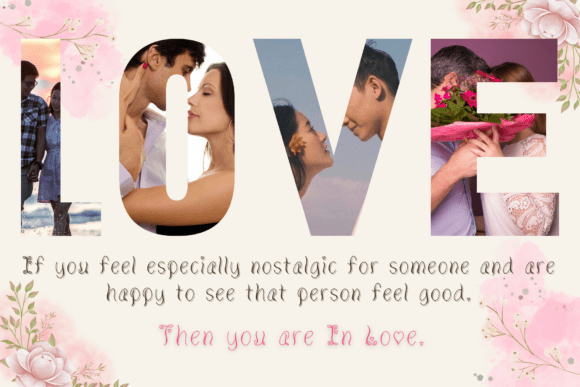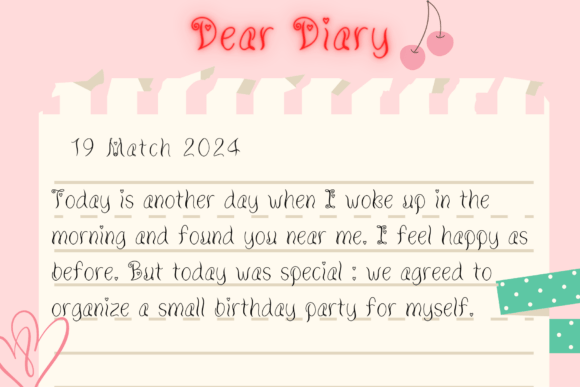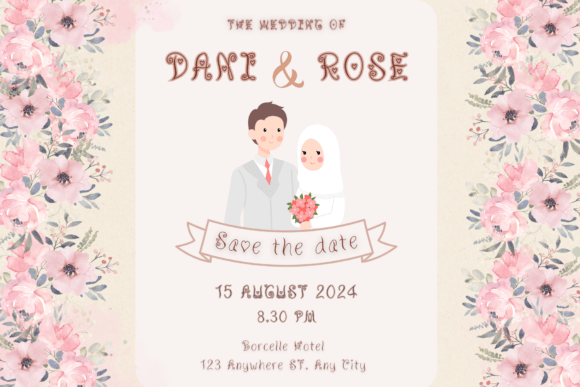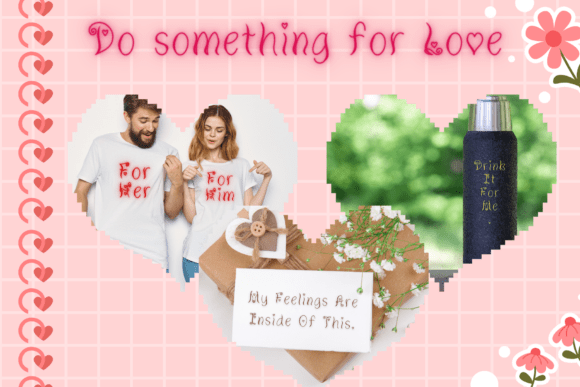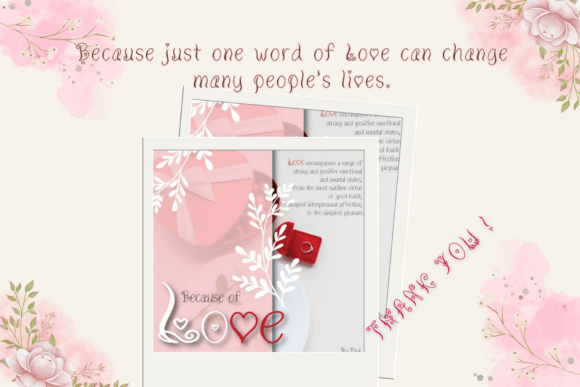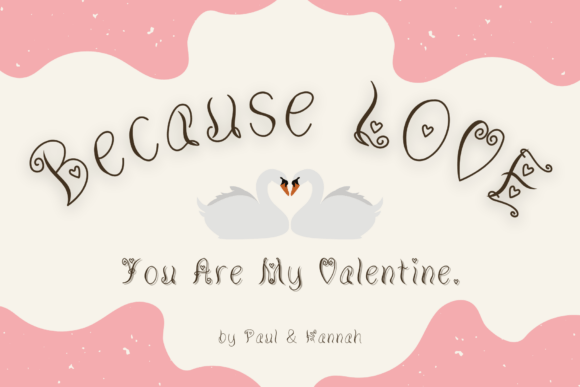
Adding a Touch of Love to Your Creations
As a designer, there’s nothing quite like the thrill of bringing a new project to life. You pour your heart and soul into every detail, from the initial concept to the final flourish. And then, it happens – that moment when everything comes together in perfect harmony. But what if you could take your creations to the next level? What if you had the perfect tool to add a touch of magic to your designs?
Enter Because Love Font, a stunning decorative font that’s sure to elevate your projects to new heights. Whether you’re working on a Valentine’s Day campaign, a romantic wedding invitation, or simply a heartfelt message, Because Love Font is the perfect companion. Its elegant, whimsical design makes it an instant favorite among designers, and its versatility means it can be used for a wide range of creative pursuits.
With Because Love Font in your arsenal, the possibilities are endless. So why settle for ordinary when you can make your designs truly extraordinary? Add a touch of love to your creations and watch them come alive in a whole new way.
Key Features of “Because Love Font”
- Font Family: Because Love Font is a unique, hand-drawn font designed to convey emotions and feelings. It comes in a single font family.
- Character Set: The font includes a wide range of characters, including uppercase and lowercase letters, numbers, punctuation marks, and special characters.
- Size: The font is available in a single font size, but it can be scaled to various sizes without losing its unique characteristics.
- Unique Characteristics: Because Love Font features a hand-drawn, cursive style with intricate details and flourishes, making it perfect for creating romantic and emotional designs.
Designer Review: Because Love Font
Overall, I think the “Because Love Font” is a solid choice for any project that needs a touch of romance and elegance. Here are a few things that stand out:
- ✨ Elegant and refined design, perfect for wedding invitations, love letters, and other romantic projects.
- ✨ The font’s subtle imperfections and handwritten feel add a unique, human touch to digital and print designs.
- ✨ It’s highly legible, making it suitable for body text as well as headlines and titles.
- ⚠️ The font may be a bit too ornate for some projects, potentially overwhelming the design.
- ⚠️ Some characters may not display correctly in certain font sizes or resolutions.
- ⚠️ The font’s unique style may not be suitable for projects that require a more modern or minimalist aesthetic.
Overall, I think the “Because Love Font” is a great choice for designers who want to add a touch of romance and elegance to their projects. With some careful consideration of the font’s limitations, it can be a beautiful and effective addition to any design.
For best results, use the font in combination with other decorative elements to create a visually appealing design.
Use “Because Love Font” for:
– Romantic gift tags and cards
– Personalized photo albums and scrapbooks
For best results, pair the font with pastel colors, floral patterns, and other whimsical elements to create a cohesive and romantic design.
What is the character set of the Because Love Font?
The Because Love Font includes a comprehensive character set, including Latin, Cyrillic, and Greek alphabets, as well as punctuation and special characters. The font also includes a wide range of ligatures and swashes to enhance its aesthetic appeal.